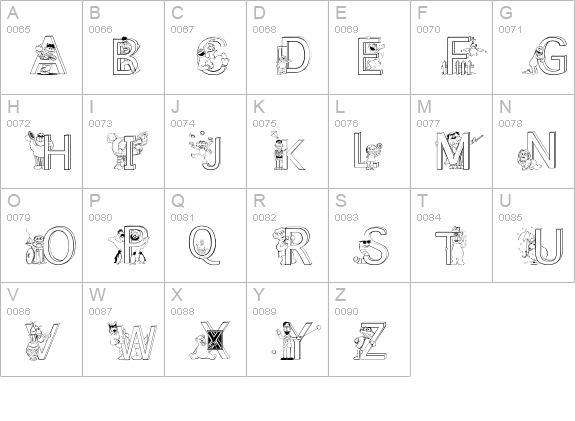
Sesame Street Font Details
The Sesame Street font is a playful and vibrant typeface that captures the essence of the beloved children's television show. With its friendly and cheerful design, it brings to life the iconic characters and joyful atmosphere of Sesame Street. This font is perfect for creating eye-catching and fun designs, whether it's for a birthday invitation, a children's book cover, or a playful poster. Its bold and rounded letters exude a sense of happiness and excitement, making it ideal for any project aimed at capturing the attention of both children and adults alike. One of the best features of the Sesame Street font is that it is freely available to download at FontsMarket.com. This means that you can easily incorporate this delightful typeface into your designs without any cost. Whether you are a professional graphic designer or a parent planning a themed party, having access to this font for free allows you to add that extra touch of Sesame Street magic to your creations. So, don't miss out on this fantastic opportunity to bring the charm and nostalgia of Sesame Street into your designs. Download the Sesame Street font today from FontsMarket.com and let your imagination run wild with the endless possibilities it offers.